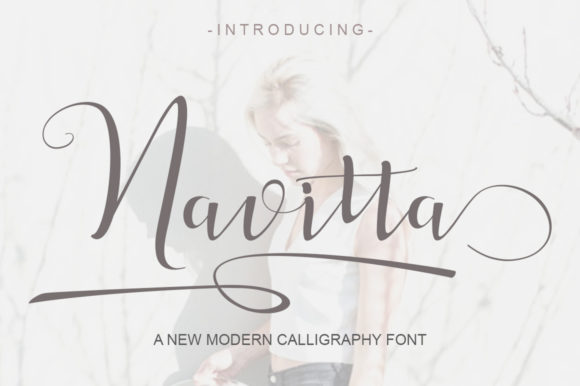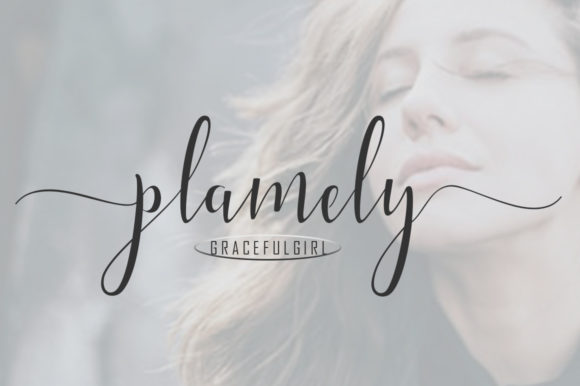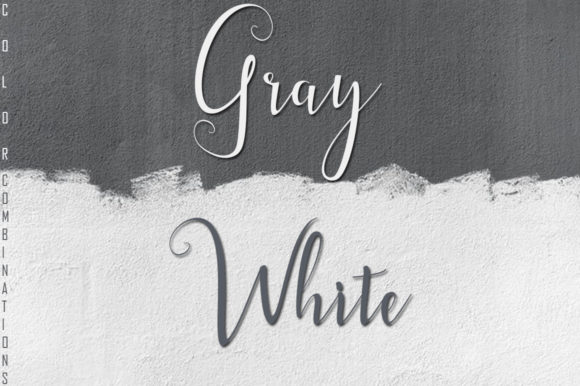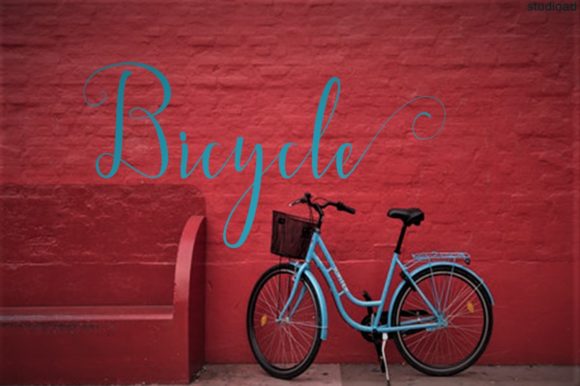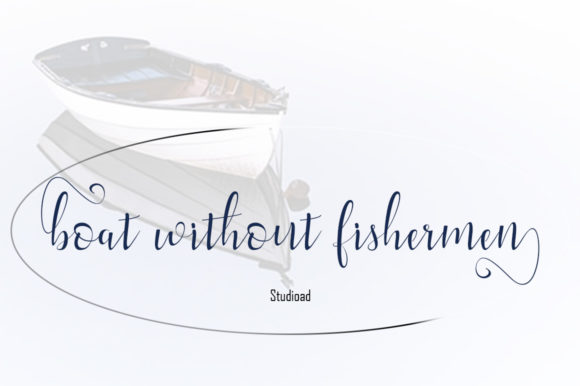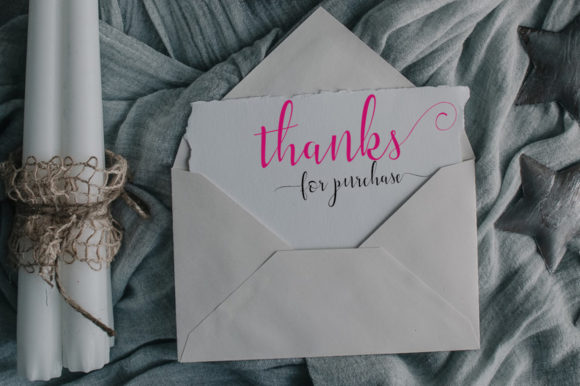
HomeScript FontsNavitta Font Script Fonts Navitta Font FacebookXPinterestWhatsApp Navitta Font Poster 2 Navitta Font Poster 3 Navitta Font Poster 4 Navitta Font Poster 5 Navitta Font Poster 6 About Navitta Font Navitta is a modern handwritten script font with charming curves. Get inspired by its lovely flourishes! DOWNLOAD ON CREATIVE FABRICAThis font is sold and delivered by Creative Fabrica. Font Canyon may earn a commission if you buy through this link. People also explored Lemonsalt Font Version Line Font Yardstick Font King Helena Font Aqua Font Botanical Flourish Font Stacylia Font Tiny Foxy Font Venetian Entry Door | Poster Mockup 387 0 TagsNavitta Font Previous articleDelighted FontNext articleAnobeshi Font LEAVE A REPLY Cancel reply Comment: Please enter your comment! Name:* Please enter your name here Email:* You have entered an incorrect email address! Please enter your email address here Website: Save my name, email, and website in this browser for the next time I comment. Personal Use Free Burgie Personal Use Free Read more about this font Playground Clip Art Personal Use Free Read more about this font Jellia Personal Use Free Read more about this font Pumpkins Candles Personal Use Free Read more about this font BLOG Fonts That Capture the Spirit of New York City New York City is more than just a place—it’s an experience, a rhythm, a visual language... Best Fonts for YouTube Videos: Make Your Thumbnails Stand Out Elegant Wedding Invitation Fonts – Handwritten & Script Fonts How to Cut Any Font on Cricut: Convert a Font to SVG (Free)